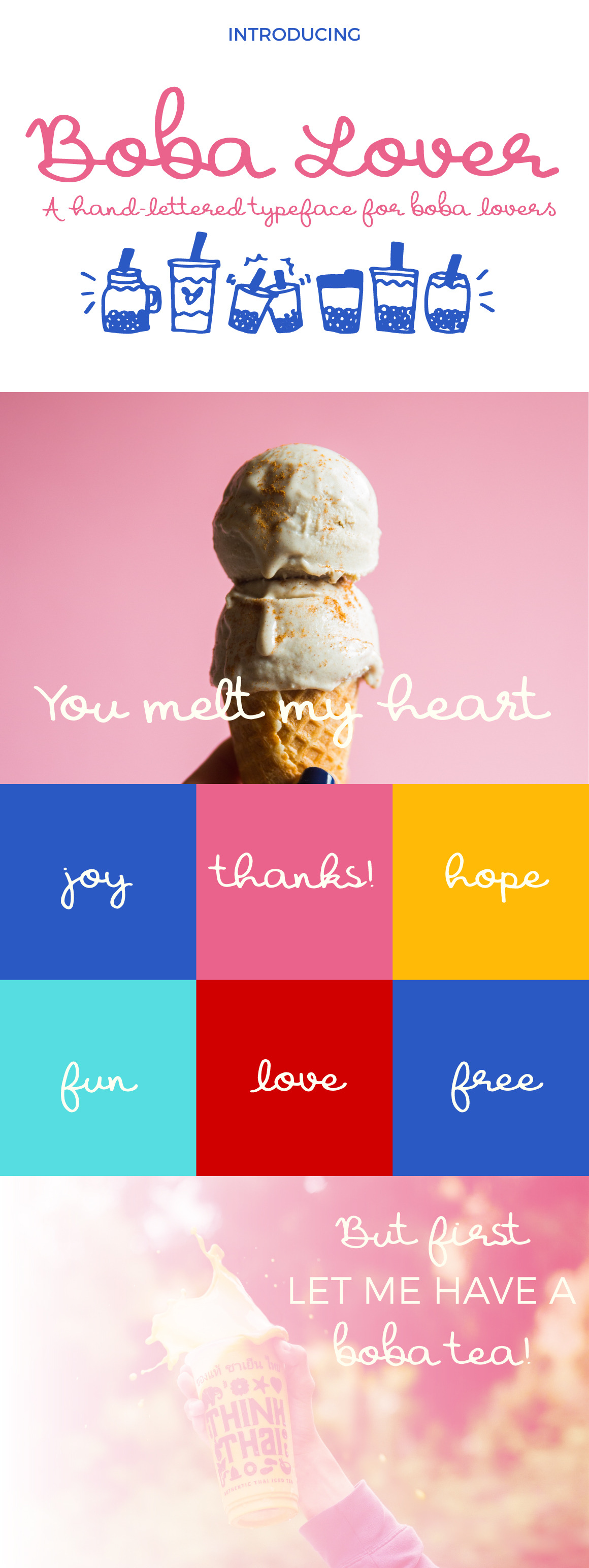
Boba Lover Script Font
Boba Lover is a handwriting script typeface designed to give off a cute and relaxed vibe. Free Boba Lover calendar 2018!
- Standard English(A-Z, a-z) and Western European languages supported, numbers(0-9), punctuations, alternate characters and ligatures
- Cute doodle symbols